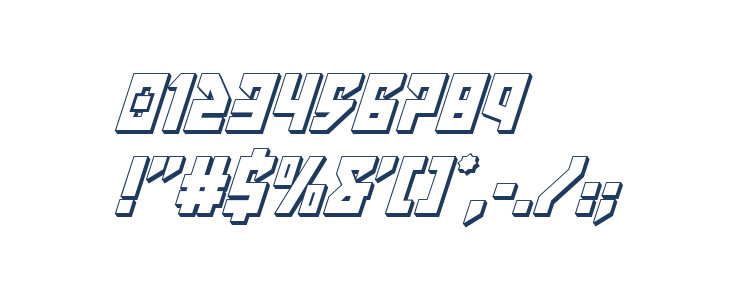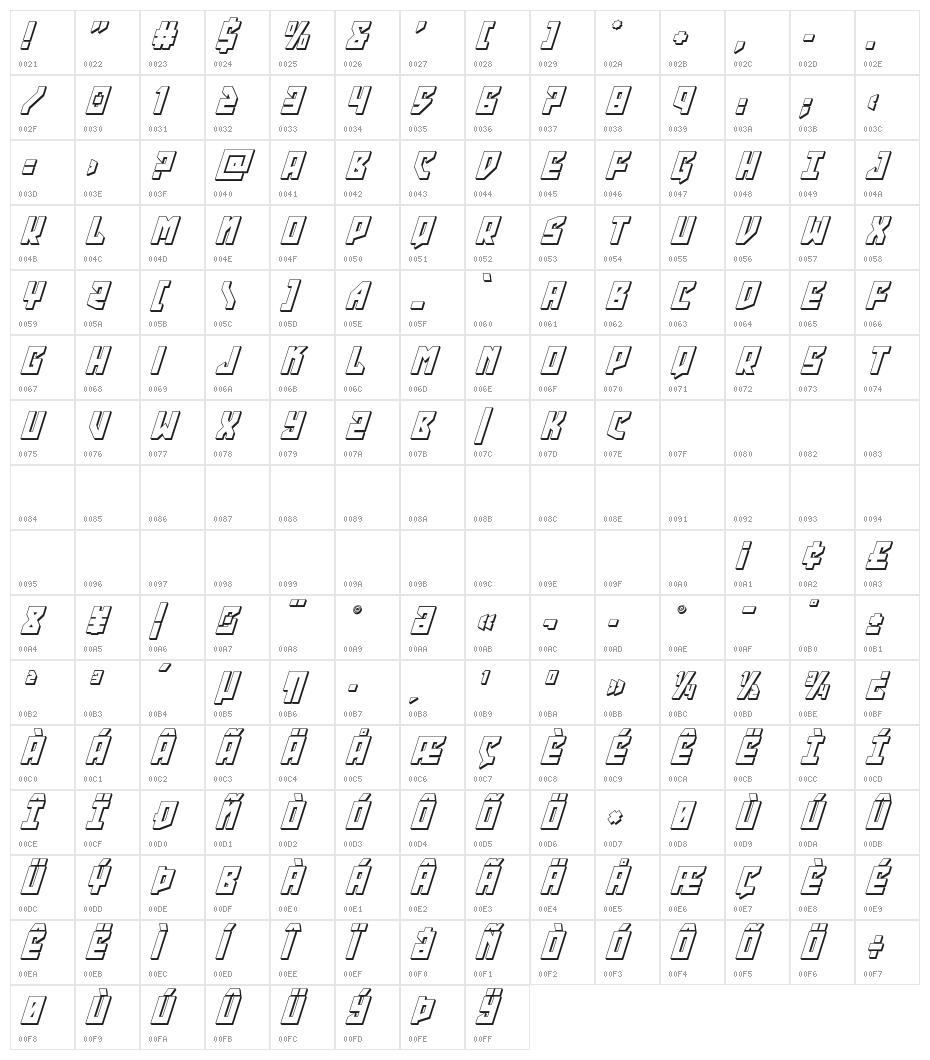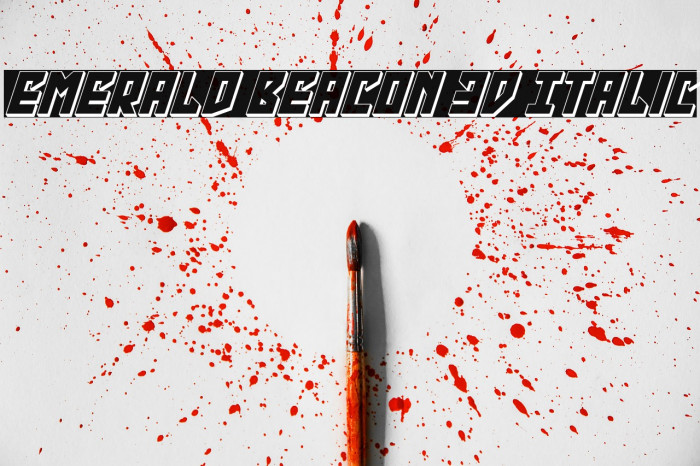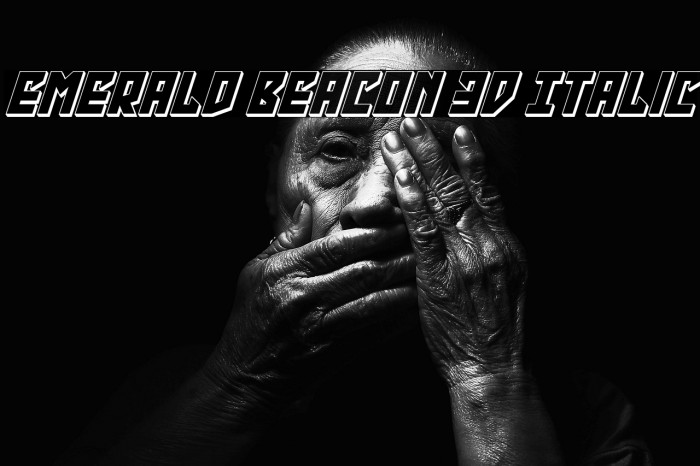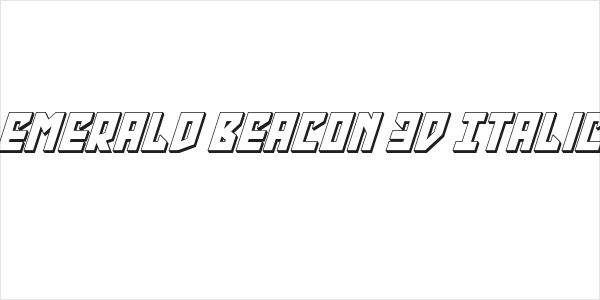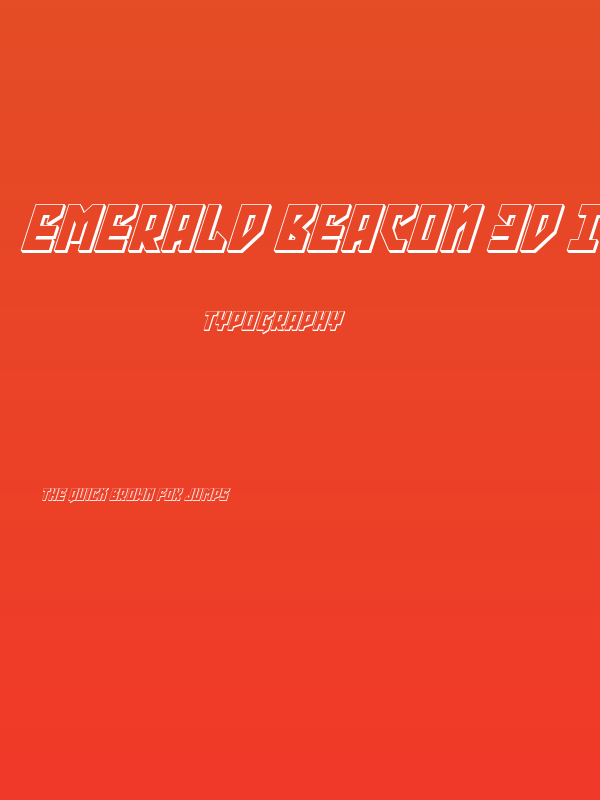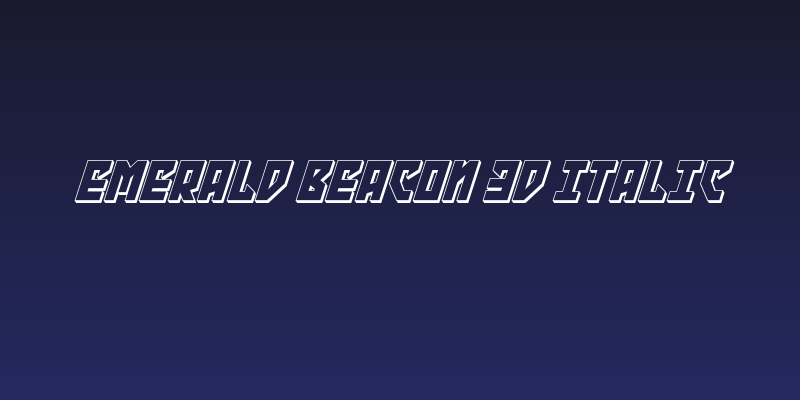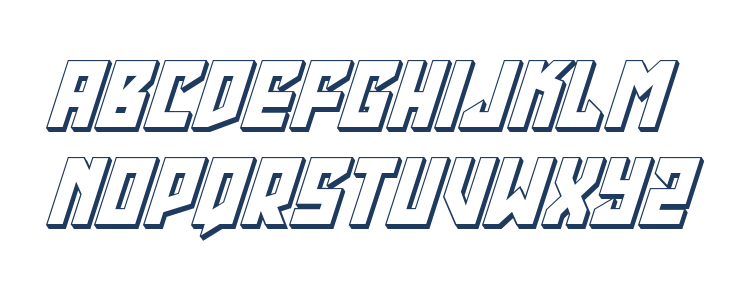
Emerald Beacon 3D Italic Font
Emerald Beacon 3D Italic Description
This font features a bold, three-dimensional design with a strong italic slant, giving it a dynamic and futuristic appearance. The characters are outlined, creating a striking contrast between the solid interior and the bold outlines. The angular, geometric shapes of the letters contribute to its modern and edgy style, making it ideal for attention-grabbing headlines or logos. The uppercase and lowercase letters maintain a consistent style, with the numbers and special characters complementing the overall aesthetic. The font's design is reminiscent of digital or sci-fi themes, with a sense of movement and depth enhanced by the 3D effect.
| Overall Style | Futuristic, Dynamic |
| Proposed Projects | Ideal for sci-fi themed projects, video game titles, tech company logos, or any design requiring a modern and bold statement. |